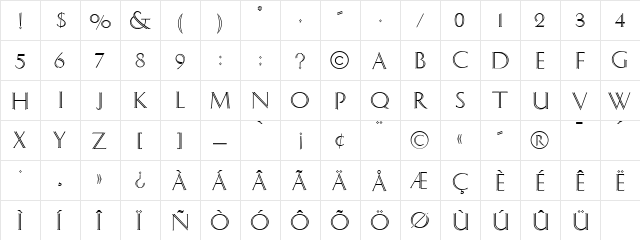
CgDelphian Regular
Design Context for CgDelphian Typeface
CgDelphian offers clean, dependable letterforms without strong stylistic allegiance, making it a practical choice for designers who need flexibility.